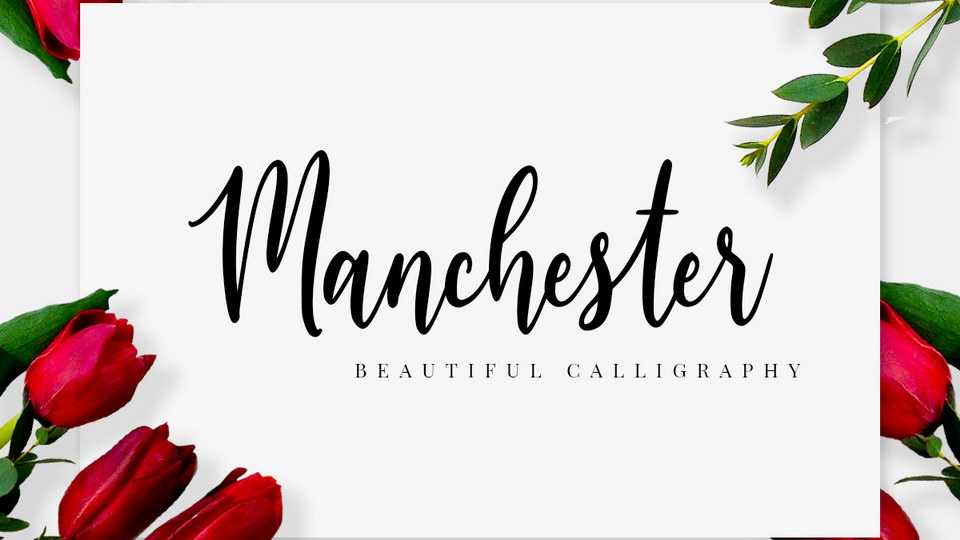
Download Manchester font, a beautiful script that simplifies elegance into one truly outstanding type. Manchester will elevate a wide range of design projects to the highest level,